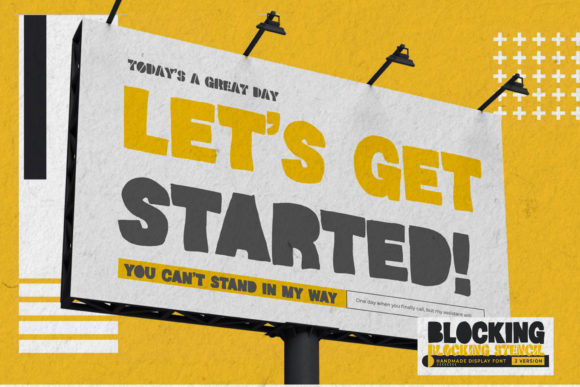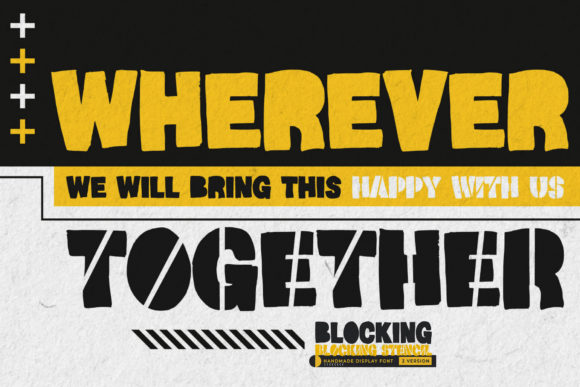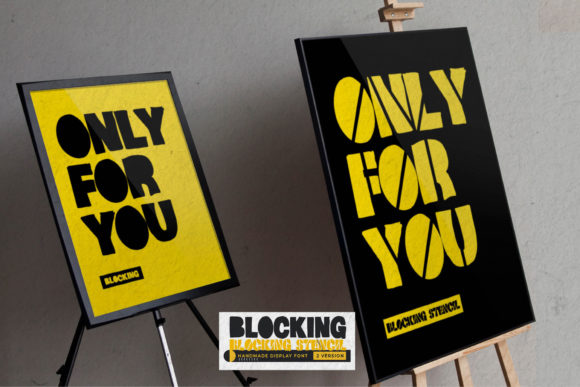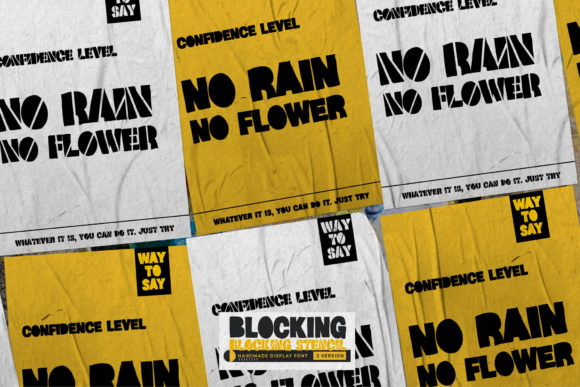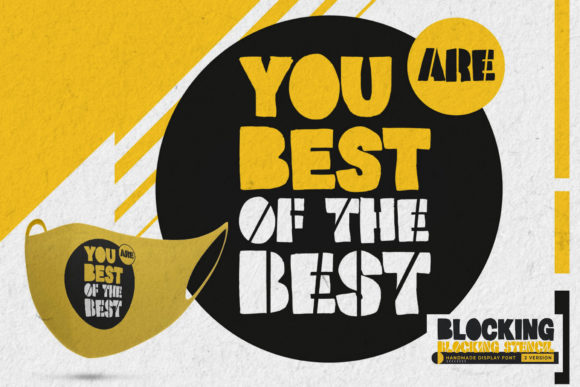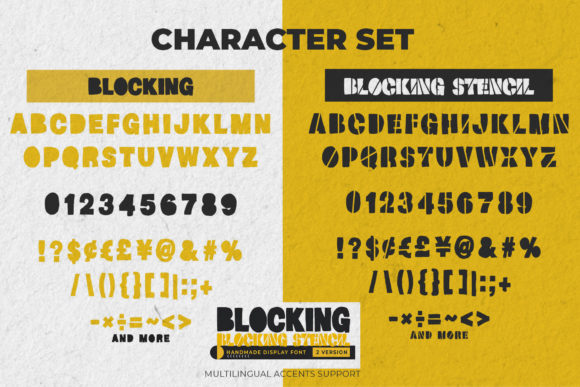
Unleash Your Creativity with Blocking Font: The Ultimate Display Font for Crafting and Design
Are you a designer, crafter, or DIY enthusiast looking for a font that can elevate your creative projects? Look no further than Blocking Font, a bold and thick lettered display font that’s perfect for a wide range of crafting ideas. From cards and invitations to branding, labels, and more, Blocking Font is the perfect addition to take your designs to the next level.
What is Blocking Font?
Blocking Font is a display font designed to make a statement. Its bold and thick lettering makes it perfect for headlines, titles, and short phrases. The font is clean, modern, and highly legible, making it easy to read and understand. Whether you’re creating a greeting card, a logo, or a label, Blocking Font is sure to grab attention and make your design stand out.
Why Choose Blocking Font?
So, why choose Blocking Font over other display fonts? Here are just a few reasons why Blocking Font is a top choice for designers and crafters:
- Versatility: Blocking Font can be used for a wide range of crafting ideas, from cards and invitations to branding, labels, and more.
- Legibility: The font is highly legible, making it easy to read and understand, even at small sizes.
- Customization: Blocking Font can be easily customized to fit your design needs, with adjustable letter spacing, font size, and more.
- Unique Style: The bold and thick lettering of Blocking Font gives it a unique style that’s sure to make your designs stand out.
How to Use Blocking Font in Your Designs
Using Blocking Font in your designs is easy. Here are a few tips to get you started:
- Pair with Other Fonts: Blocking Font pairs well with other fonts, such as script fonts, serif fonts, and sans-serif fonts. Experiment with different font combinations to find the perfect look for your design.
- Use for Headlines and Titles: Blocking Font is perfect for headlines and titles. Use it to grab attention and draw the eye to important information.
- Add Texture and Patterns: Add texture and patterns to your design by layering Blocking Font over a background image or texture.
- Experiment with Colors: Blocking Font looks great in a variety of colors. Experiment with different colors and color combinations to find the perfect look for your design.
Crafting Ideas with Blocking Font
Blocking Font is perfect for a wide range of crafting ideas, including:
- Greeting Cards: Use Blocking Font to create bold and eye-catching headlines and titles for your greeting cards.
- Invitations: Make your invitations stand out with Blocking Font. Use it to create bold and modern headlines and titles.
- Branding: Use Blocking Font to create a bold and modern brand identity. Perfect for logos, labels, and packaging.
- Labels: Use Blocking Font to create bold and eye-catching labels for your products or DIY projects.
Blocking Font is a bold and thick lettered display font that’s perfect for designers, crafters, and DIY enthusiasts. With its versatility, legibility, and unique style, Blocking Font is sure to elevate your creative projects and take your designs to the next level. So why wait? Add Blocking Font to your favorite creations and let yourself be amazed by the outcome generated.
Whether you’re a seasoned designer or a crafting newbie, Blocking Font is the perfect addition to your design toolkit. So go ahead, get creative, and see what amazing designs you can create with Blocking Font!